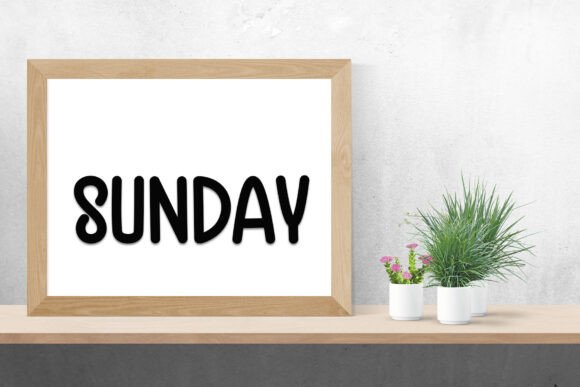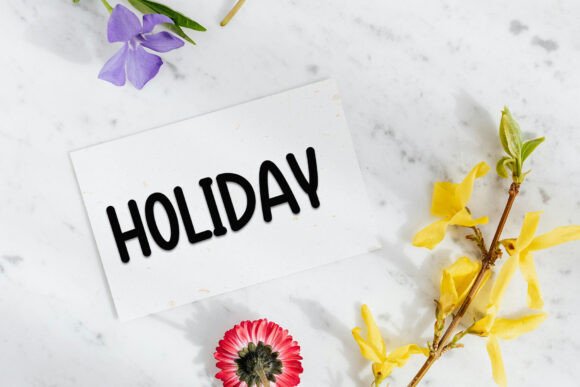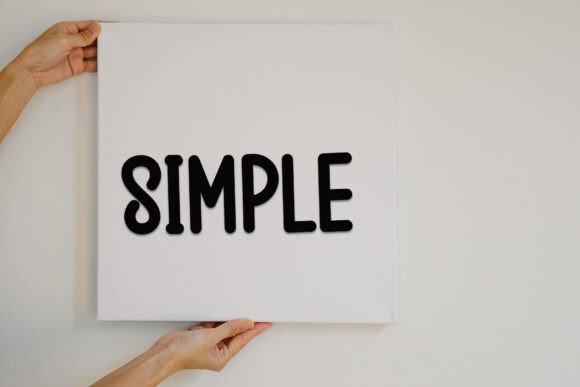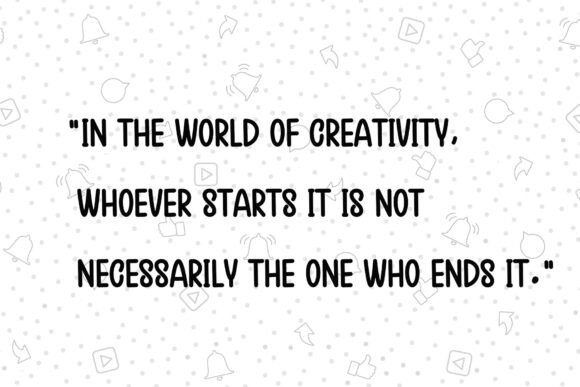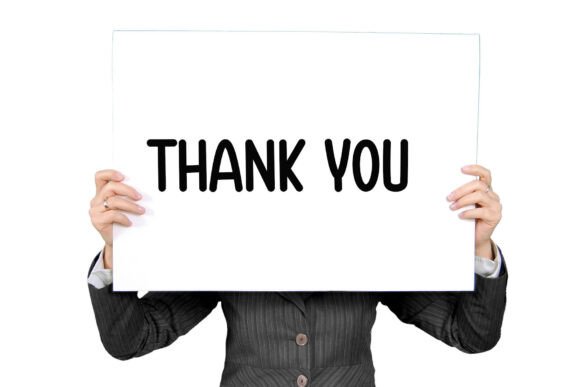
Introducing Business Font: Elevate Your Designs with Timeless Elegance
In the world of design, typography plays a crucial role in conveying the tone and personality of a brand. A well-chosen font can make all the difference in creating a lasting impression on your audience. If you’re looking for a font that exudes elegance, sophistication, and a touch of classic charm, look no further than Business Font. This trendy handwritten font is inspired by timeless classic calligraphy, making it the perfect addition to your design projects.
The Inspiration Behind Business Font
Business Font draws its inspiration from the world of classic calligraphy, where the art of beautiful handwriting is revered. The font’s creator aimed to capture the essence of traditional calligraphy and infuse it with a modern twist, resulting in a unique and contemporary typeface. The result is a font that is both nostalgic and fresh, perfect for designers who want to add a touch of sophistication to their work.
Key Features of Business Font
So, what makes Business Font stand out from the rest? Here are some of its key features:
- Trendy Handwritten Style: Business Font boasts a beautiful, handwritten style that is both modern and elegant.
- Contemporary Atmosphere: The font’s clean lines and subtle curves create a contemporary atmosphere that is perfect for a wide range of design projects.
- Impeccable Form: Each letterform has been carefully crafted to ensure impeccable form and a high level of legibility.
- Timeless Classic Calligraphy Inspiration: The font’s inspiration from classic calligraphy gives it a timeless quality that will never go out of style.
Use Cases for Business Font
Business Font is an incredibly versatile typeface that can be used in a wide range of design projects, including:
- Branding and Identity: Use Business Font to create a lasting impression on your audience and establish a strong brand identity.
- Packaging Design: Add a touch of elegance to your packaging designs with this beautiful font.
- Advertising and Marketing: Business Font is perfect for creating eye-catching ads and marketing materials that demand attention.
- Stationery and Signage: Use this font to create beautiful stationery, signage, and other printed materials that exude class and sophistication.
Why Choose Business Font?
With so many fonts available, why choose Business Font? Here are just a few reasons:
- Unique and Distinctive: Business Font is a unique and distinctive typeface that will set your designs apart from the rest.
- Elegant and Sophisticated: This font exudes elegance and sophistication, making it perfect for high-end designs.
- Highly Legible: Business Font is highly legible, even at small sizes, making it perfect for a wide range of applications.
In conclusion, Business Font is a stunning handwritten font that is inspired by timeless classic calligraphy. Its trendy, contemporary style and impeccable form make it the perfect addition to any design project. With its versatility, elegance, and sophistication, Business Font is sure to become a favorite among designers and crafters. So why wait? Download Business Font today and elevate your designs to new heights!